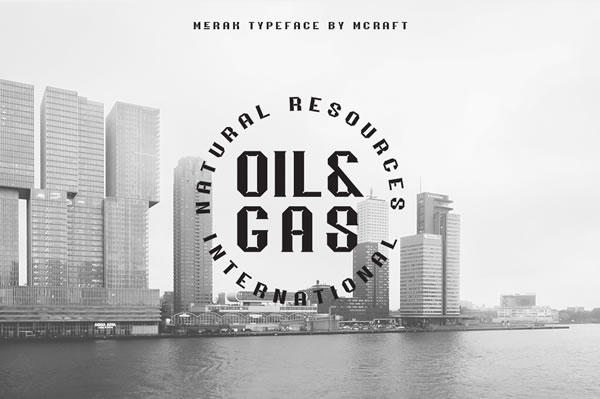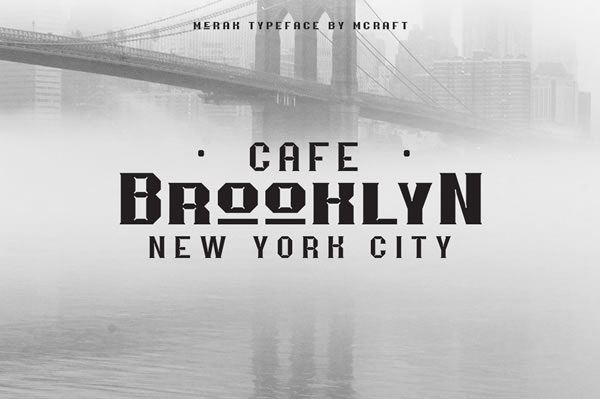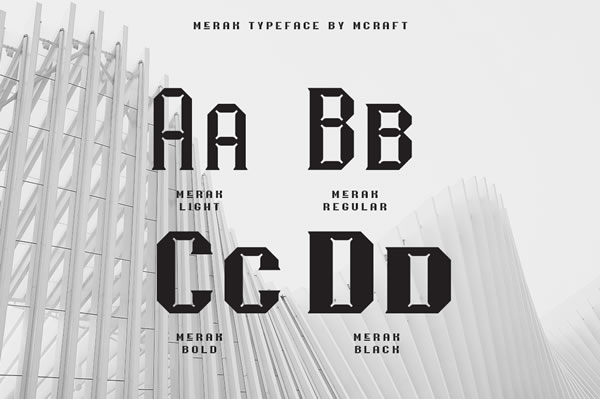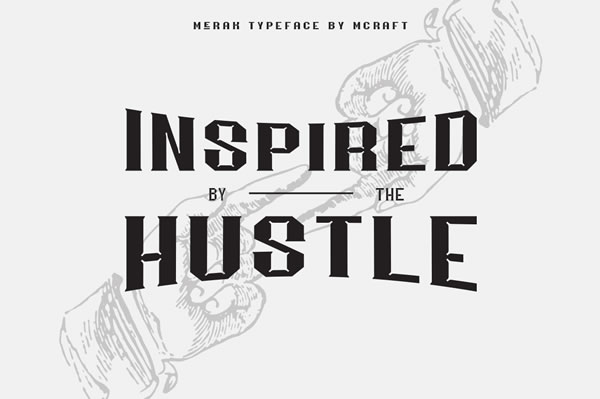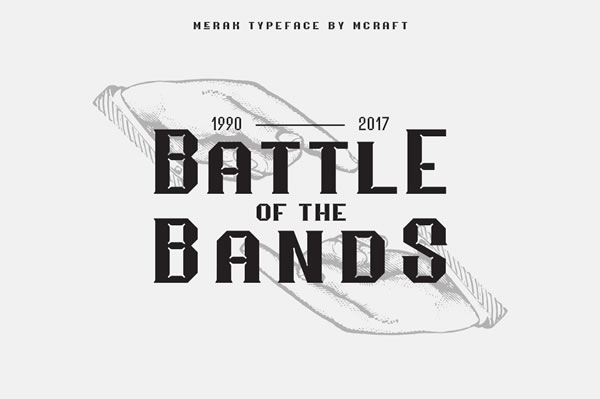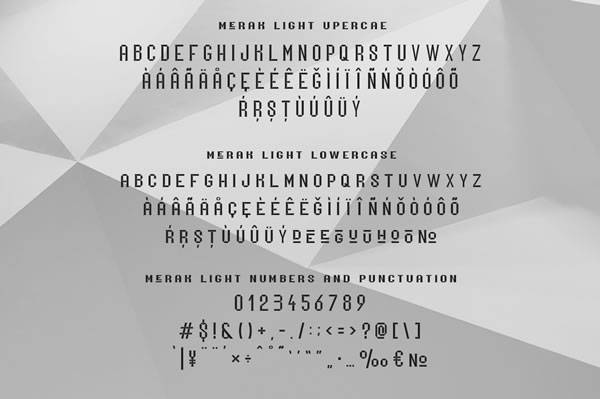
Introduction to Merak Font
Have you ever found yourself lost in a sea of creative possibilities, only to stumble upon the perfect design element that sparks your imagination? For designers, this moment is priceless, and the Merak Font is about to become your new go-to treasure. This innovative font draws inspiration from science fiction movies and industrial typography, offering a unique blend of futuristic and edgy vibes.
With its transparent background and high-quality design, the Merak Font is an invaluable resource for any creative project. Whether you’re working on a futuristic sci-fi novel, a cyberpunk-themed video game, or a cutting-edge tech startup, this font is sure to elevate your design to new heights. And the best part? It’s available for a free download, making it a must-have for designers on a budget.
- With a clear and legible design, Merak Font is ideal for use in presentations, posters, and other visual materials
- Unique characteristics include a modern aesthetic and a wide range of glyphs, making it suitable for a variety of creative projects
Honest Review: Merak Font
I recently had the chance to try out the Merak Font, a popular design resource that’s been making waves in the creative community. As a designer, I was excited to see if it lived up to the hype.
- High-quality design: The Merak Font has a sleek, modern aesthetic that’s perfect for a variety of creative projects.
While the Merak Font is a great resource, I did notice a few limitations. The font’s character set is a bit limited, which may be a problem for designers working on projects that require a wide range of characters.
Overall, I’m impressed with the Merak Font. It’s a high-quality design resource that’s perfect for designers working on creative projects. While it may have a few limitations, I think it’s definitely worth checking out.
Tips for Getting the Most Out of Merak Font
To get the most out of Merak Font, use it with a transparent background to create a clean and modern design. You can also use it in combination with other design elements to create a unique and eye-catching visual effect.
Common Use Cases for Merak Font
The Merak Font is a versatile design resource that can be used in a variety of creative projects, including logos, brochures, business cards, and more. It’s perfect for designers looking for a high-quality font with a modern and sleek design.